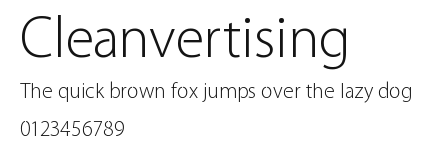
• Font Name: Cleanvertising
• Designer: © 2010 Cleanvertising
• Description: Cleanvertising - Reclame waar je neit aan voorbij loopt
Cleanvertising .ttf is a modern, elegant sans-serif font designed for ultimate readability and visual harmony. Perfect for branding, headlines, web design, and print materials.